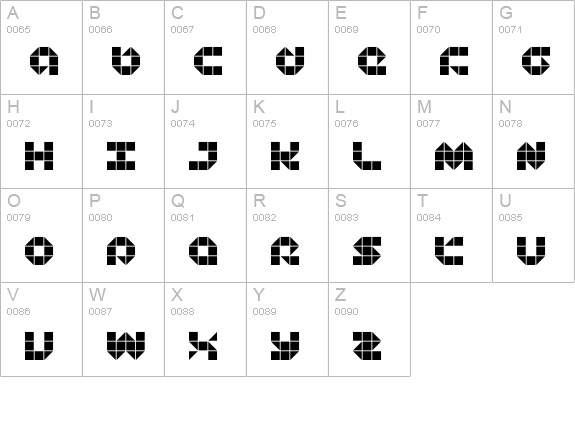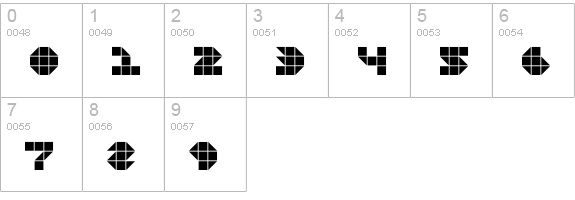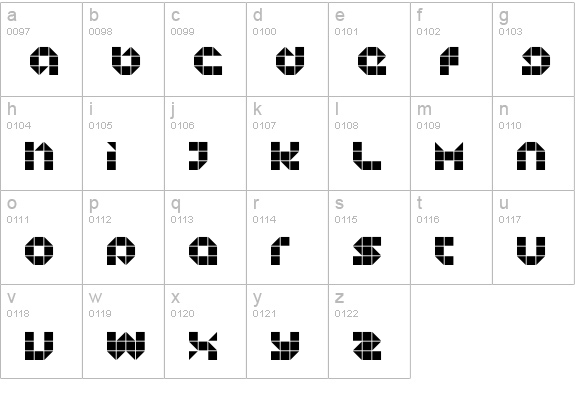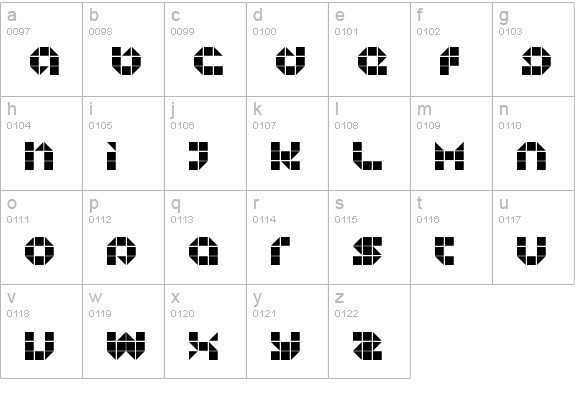
DS Platte Font Details
DS Platte font is a beautifully crafted typeface that exudes elegance and sophistication. With its clean lines and modern aesthetic, this font is perfect for a wide range of design projects, from branding to editorial design. The sleek and stylish letterforms of DS Platte font make it a versatile choice for both digital and print applications. What sets DS Platte font apart is that it is not only visually stunning but also free to download. That's right, you can get your hands on this stunning font at no cost, simply by visiting FontsMarket.com. Whether you're a professional designer looking to add a touch of class to your projects or a hobbyist looking to elevate your creative endeavors, DS Platte font is the perfect choice. Download it today and see for yourself the impact this font can have on your designs.